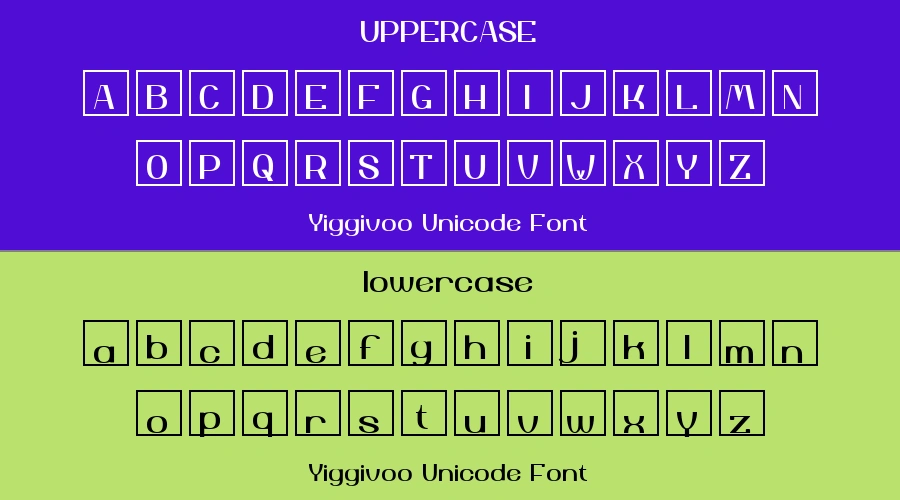
About Yiggivoo Unicode Font
Yiggivoo Unicode Font stands out for its distinctive combination of calligraphic influence and adaptability. Ideal for financial reports, it provides the accuracy and artistic value that professional projects demand. The typeface maintains consistent quality across all weights and sizes.
Key features include refined straight stems and practical stylistic sets, enhancing typographic expression. In brochures applications, Yiggivoo Unicode Font demonstrates exceptional performance. The letterfit and technical tradition contribute to its distinctive character and professional appeal.